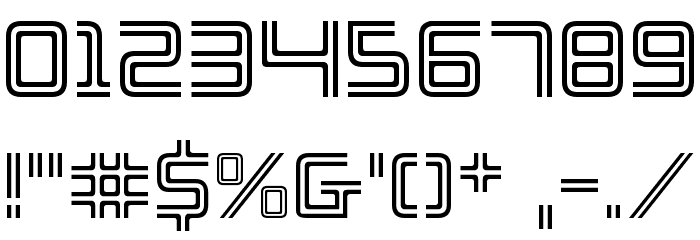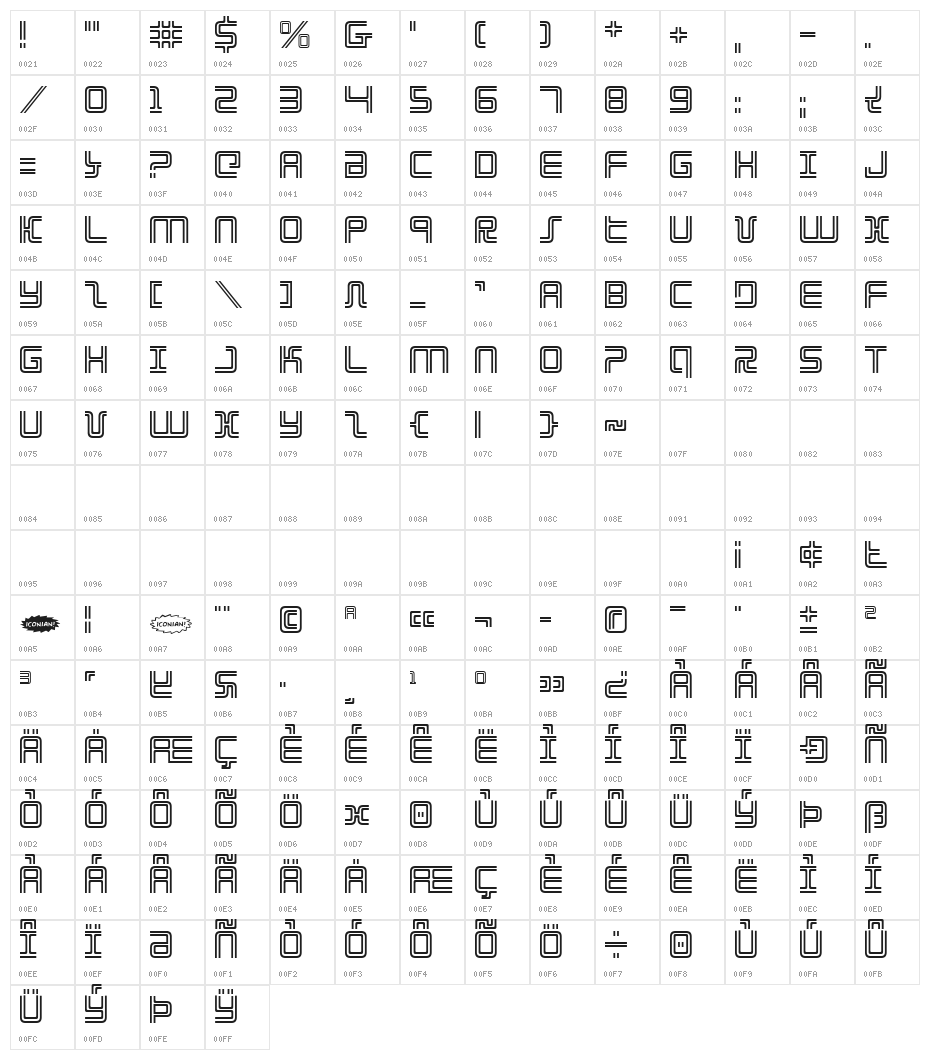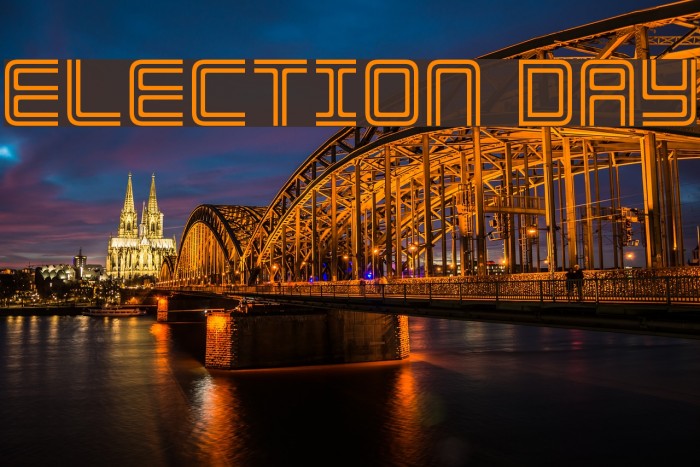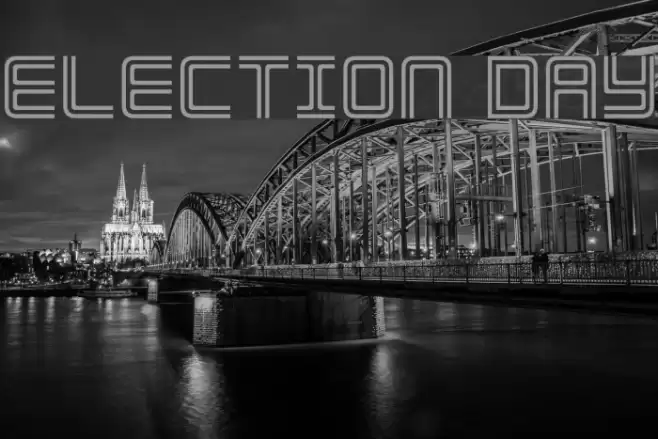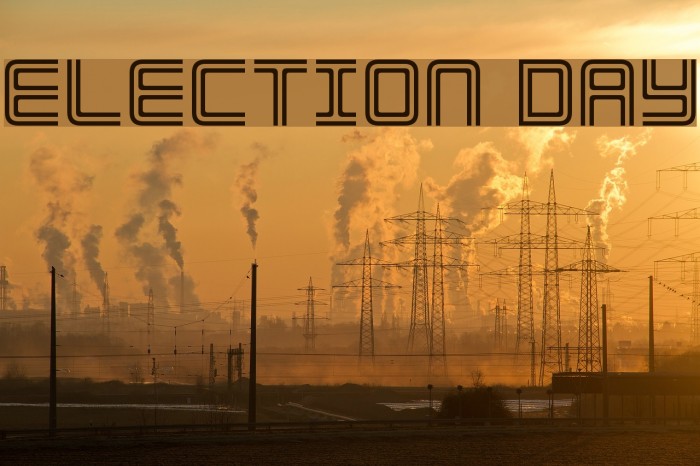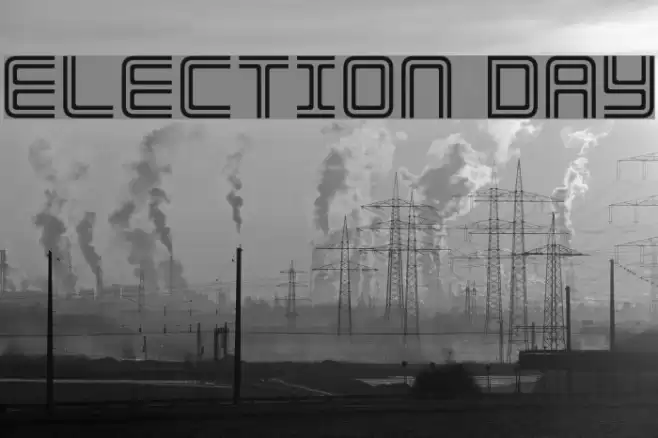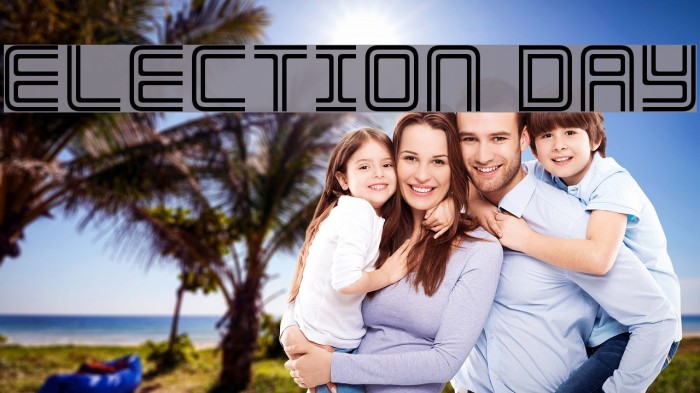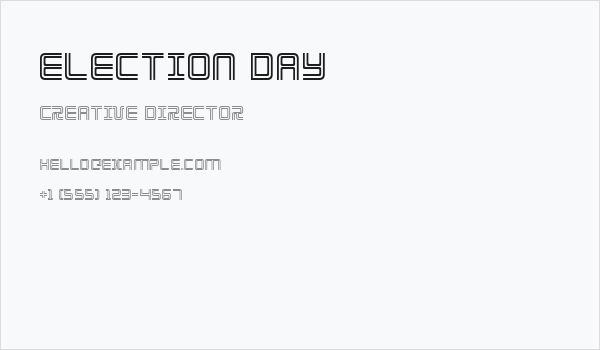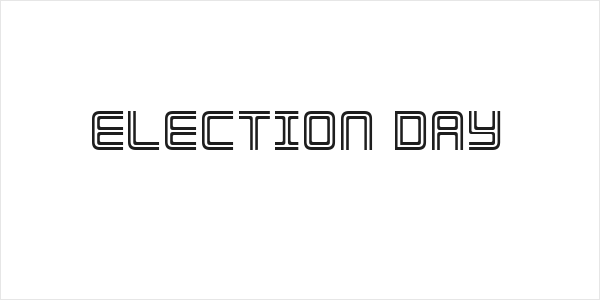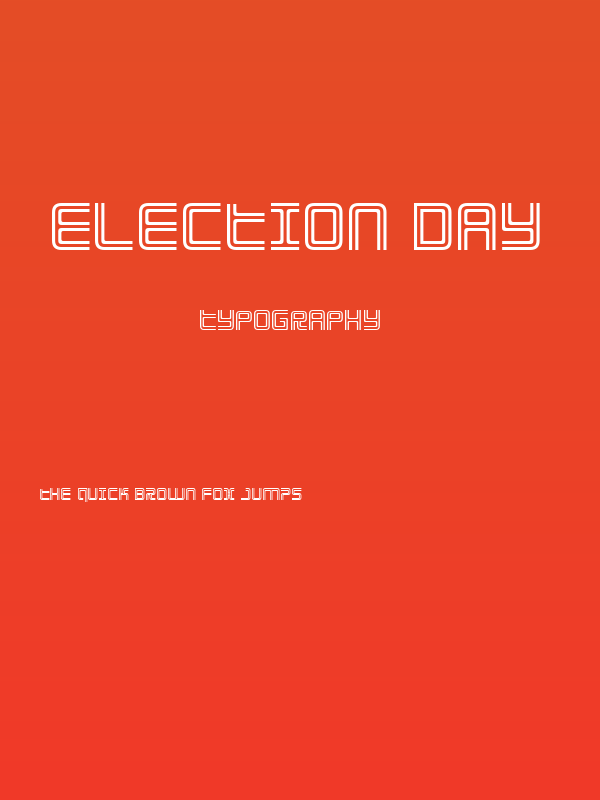
Election Day Font
Election Day Description
This font features a modern, geometric design with a double-line structure that creates a sense of depth and dimension. The uppercase and lowercase letters maintain a consistent style, with clean lines and a futuristic aesthetic. The numerals and special characters follow the same design principles, ensuring uniformity across all glyphs. The font's unique appearance makes it suitable for projects that require a contemporary and eye-catching look.